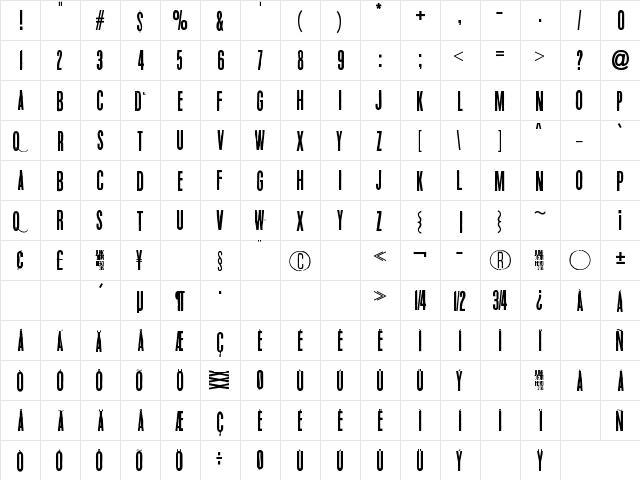
White Elephant Regular
Design Context for White Elephant Typeface
White Elephant offers clean, dependable letterforms without strong stylistic allegiance, making it a practical choice for designers who need flexibility.
Pro Tip: Pair White Elephant with a font of contrasting weight or personality to build a more expressive typographic hierarchy.